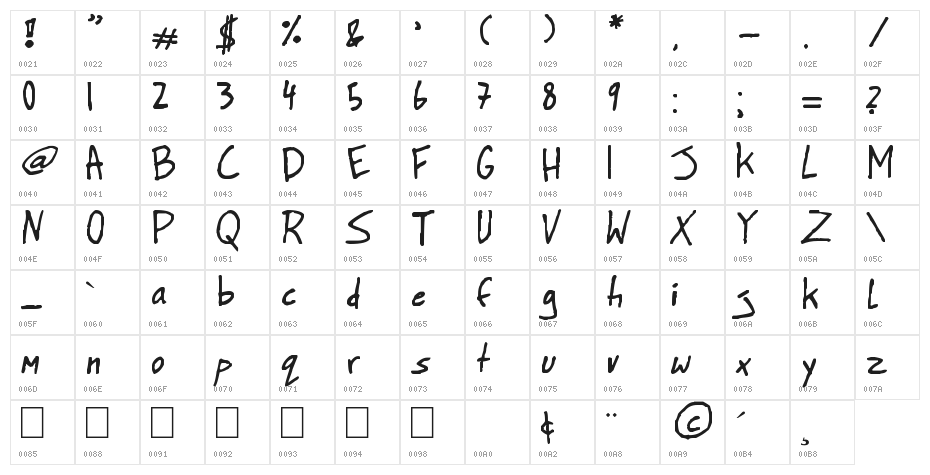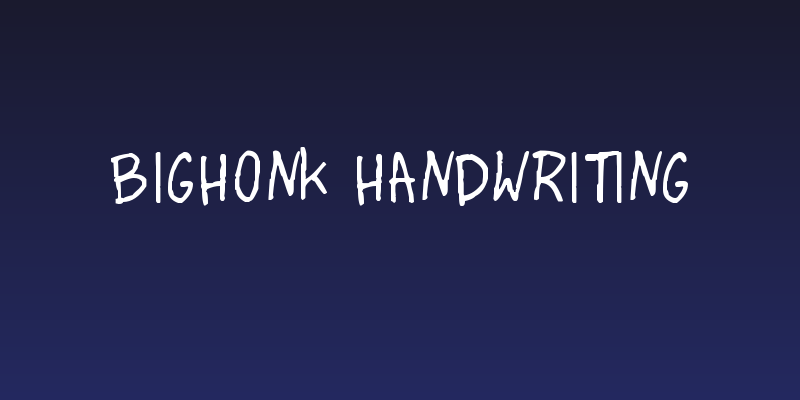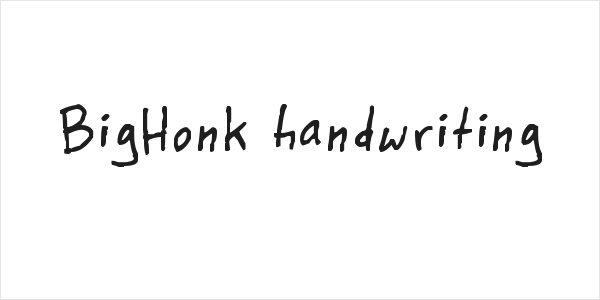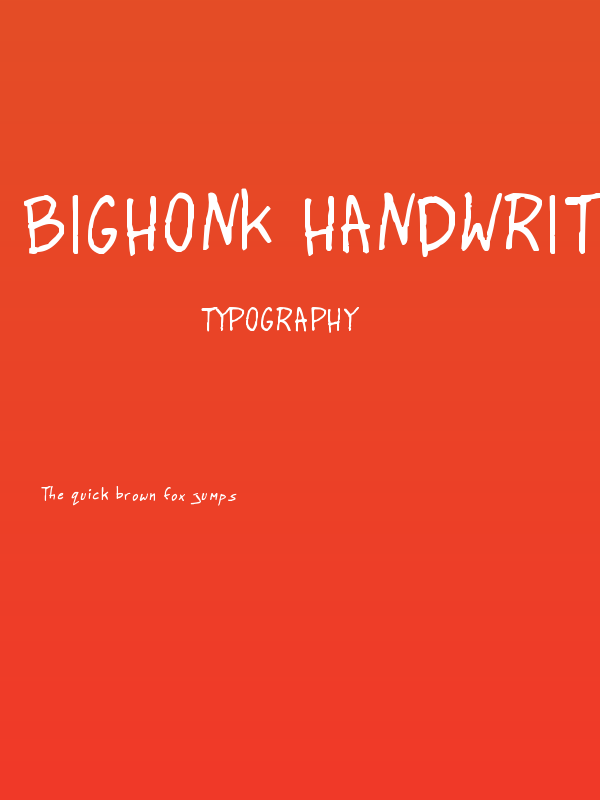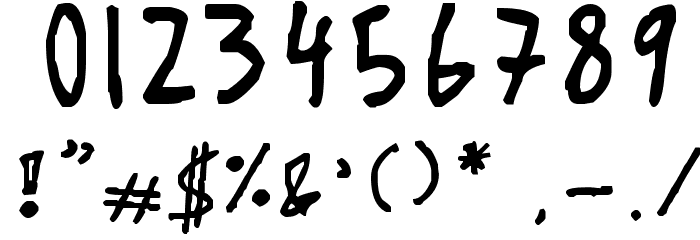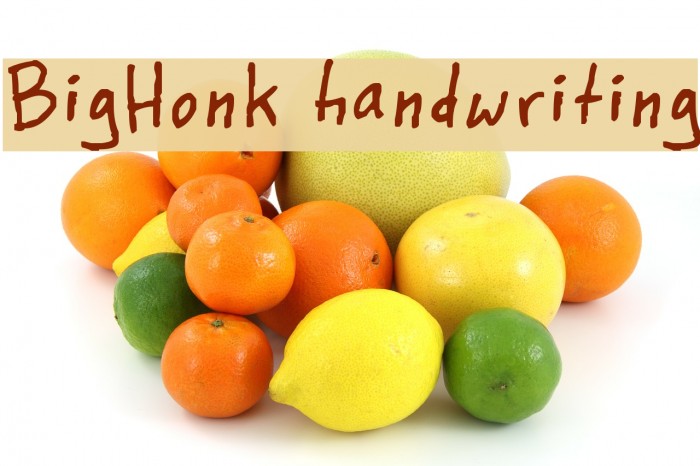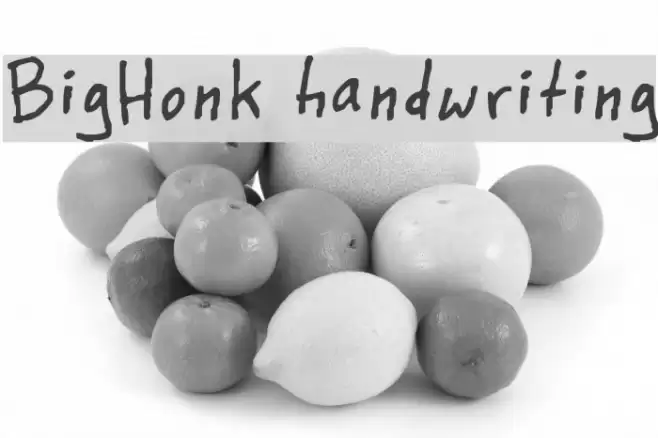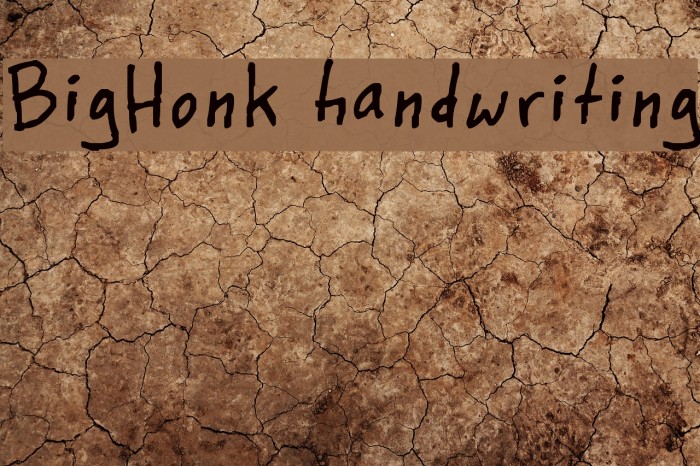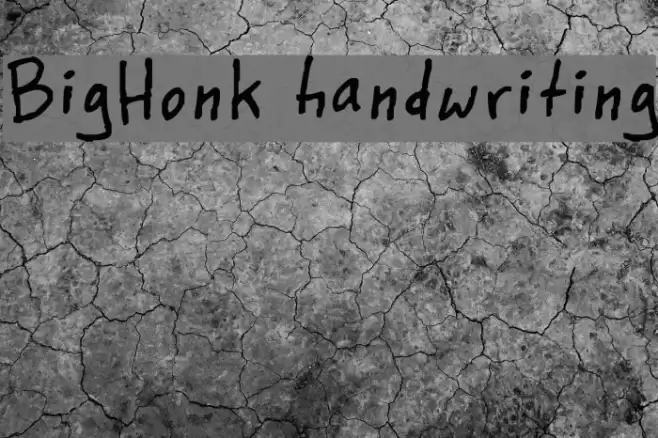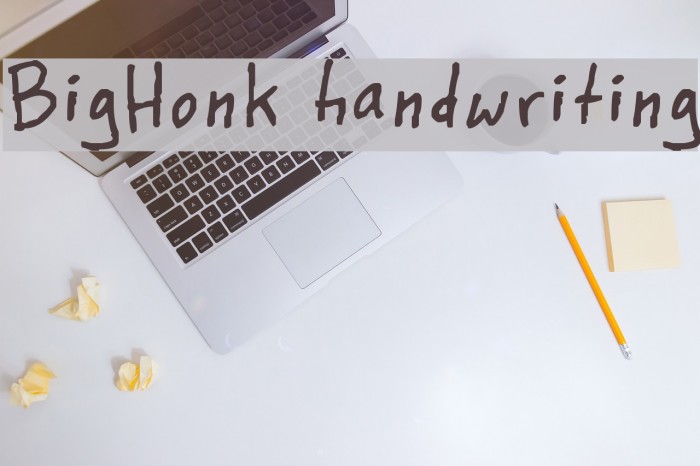
BigHonk handwriting Font
BigHonk handwriting Description
This font exhibits a playful and casual handwritten style, characterized by its irregular and slightly uneven strokes that mimic the natural flow of handwriting. The uppercase and lowercase letters maintain a consistent yet informal appearance, with some letters featuring unique quirks that add personality. The numerals and special characters follow the same handwritten aesthetic, making them blend seamlessly with the alphabet. The overall look is approachable and friendly, suitable for projects that require a personal touch or a less formal tone.
| Overall Style | Casual, Playful |
| Use Case | Headlines, Informal text, Creative projects |
| Proposed Projects | Ideal for greeting cards, personal blogs, informal invitations, and creative projects that benefit from a handwritten touch. |